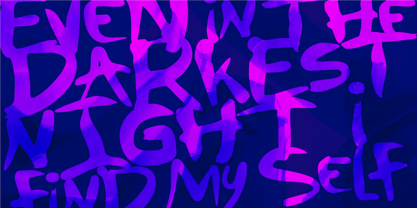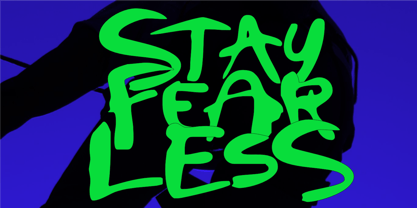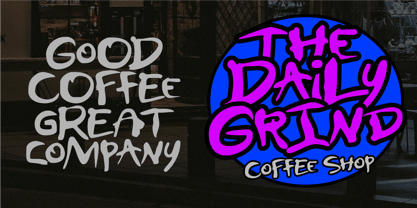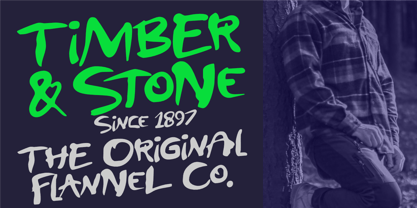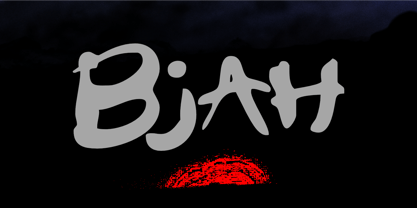
Bjah
by Olivetype
The Bjah Font Family was designed by Nurul Hidayani and published by Olivetype. Bjah contains 1 styles. More about this family
Bjah is an expressive handwritten display font that captures the raw energy of hand-painted lettering. Featuring bold strokes, playful curves, and an organic handcrafted style, this font delivers a striking personality that instantly grabs attention. Every letter is designed with a natural brush-inspired flow, creating a casual yet impactful look perfect for modern branding and creative projects.
Whether you're designing eye-catching logos, streetwear graphics, posters, packaging, social media content, album covers, café branding, food labels, merchandise, or YouTube thumbnails, Bjah adds an authentic handcrafted touch that makes your designs stand out. Its bold, artistic character makes it especially suitable for headlines, titles, and branding where creativity and individuality take center stage.
From urban-inspired visuals to fun lifestyle brands, Bjah is a versatile display font that blends expressive handwritten charm with contemporary style. If you're looking for a typeface that feels energetic, unique, and full of character, Bjah is the perfect choice.